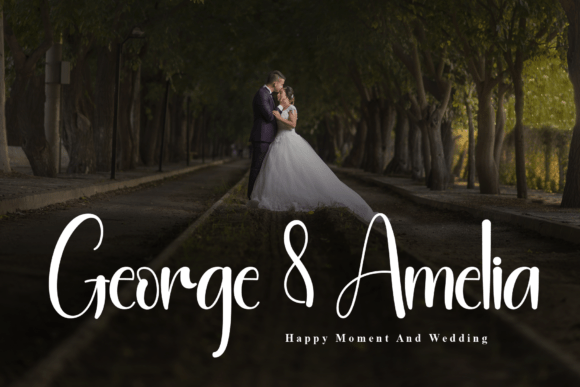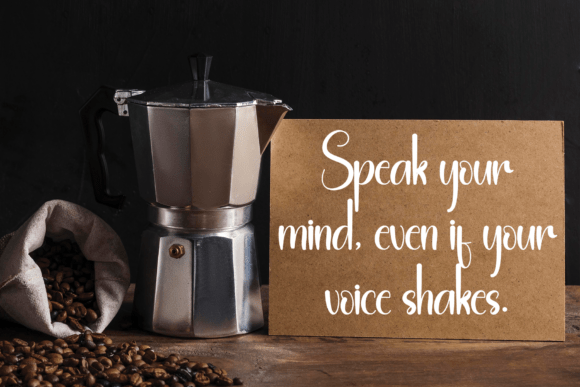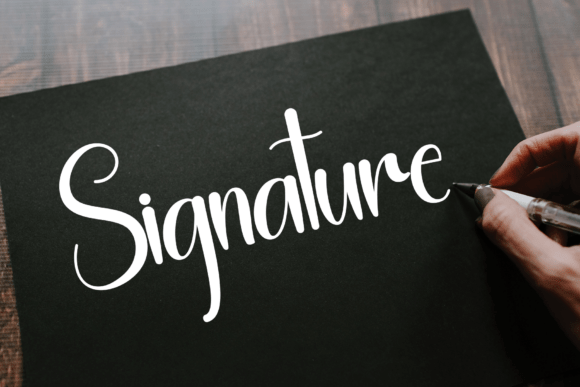
Introduction to New Year Celebration Font
As the clock strikes midnight and fireworks light up the sky, we can’t help but feel the excitement of a new beginning. It’s the perfect time to reflect on the past year and look forward to the one ahead. And what better way to do so than with a font that embodies the joy and magic of the New Year Celebration? Our New Year Celebration Font is more than just a design element – it’s an invitation to creativity and self-expression.
Whether you’re planning a party, creating a card for a loved one, or working on a design project, this font is the perfect resource to add a touch of whimsy and charm. With its free download option, transparent background, and high-quality design, you’ll have endless possibilities to unleash your creativity. As a valuable addition to any design resource, the New Year Celebration Font is sure to elevate your creative project and leave a lasting impression.
New Year Celebration Font
- High-quality design resource perfect for creative projects and celebrations.
- Transparent background option for easy customization and versatility.
- Unique and festive design elements, including confetti, balloons, and fireworks.
- Perfect for use in digital and print media, such as social media graphics, posters, and invitations.
Honest Review: New Year Celebration Font
I recently had the chance to work with the New Year Celebration Font and I must say, it’s a fantastic addition to any design resource collection. The free download was a pleasant surprise, and I was excited to see how it would perform in my creative project.
The font’s transparent background made it easy to integrate with my design, and the high-quality vectors allowed for crisp and clear rendering even at large sizes. ✨ I particularly loved the playful, festive feel it brought to my design, perfect for any New Year’s celebration-themed project.
- Wide range of characters and symbols, including festive emojis
- Highly customizable with various font sizes and styles
While the font is overall impressive, I did notice a few limitations. ⚠️ The font is not optimized for use in smaller text sizes, which can result in a slightly fuzzy appearance. Additionally, the font’s bold weights can be a bit overwhelming if overused.
Overall, I’m extremely impressed with the New Year Celebration Font. It’s a fantastic resource for any designer working on a creative project, and its high quality and customizable nature make it a standout choice in any design collection.
How to Use New Year Celebration Font
Design Resource for Creative Project
The New Year Celebration Font is a high-quality design resource perfect for any creative project. With its unique and festive style, it’s ideal for celebrating the start of a new year. You can download it for free and use it in various design applications.
To get the most out of the New Year Celebration Font, use it with a transparent background to create a stunning effect. You can also combine it with other design elements, such as images or graphics, to create a unique and eye-catching design.
The New Year Celebration Font is perfect for:
1. New Year’s Eve party invitations and decorations.
2. Social media posts and graphics celebrating the new year.
3. Designing greeting cards and gift tags for friends and family.
Whether you’re working on a New Year’s Eve invitation, a party flyer, or a social media post, the New Year Celebration Font is sure to bring a touch of festive flair to your design. So why not give it a try? Download this amazing font today and unlock a world of creative possibilities. With its unique style and high-quality design, you’ll be sure to make a lasting impression on your audience.